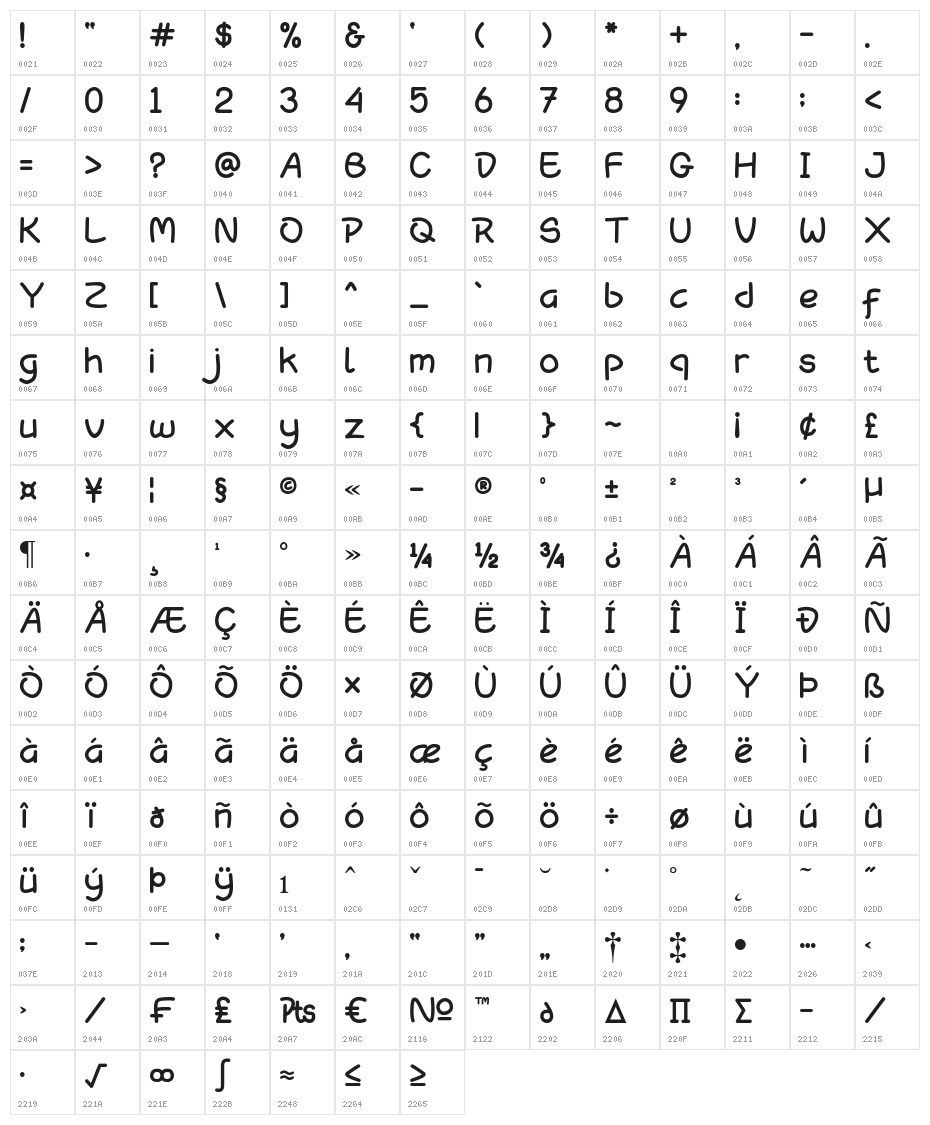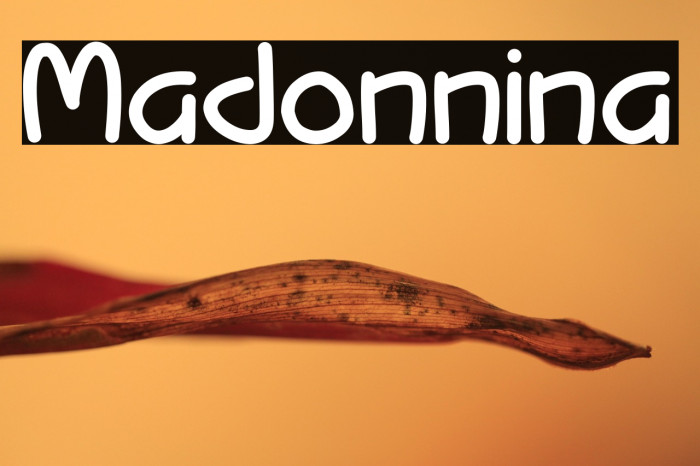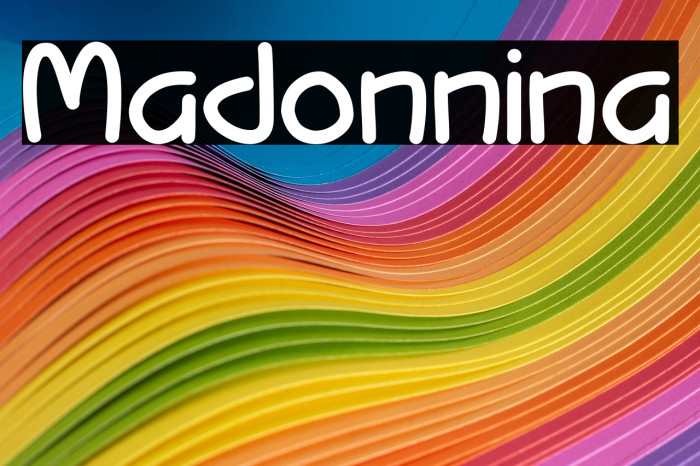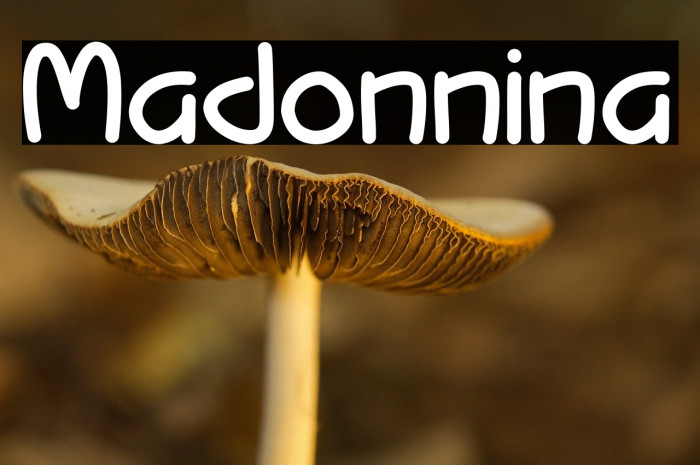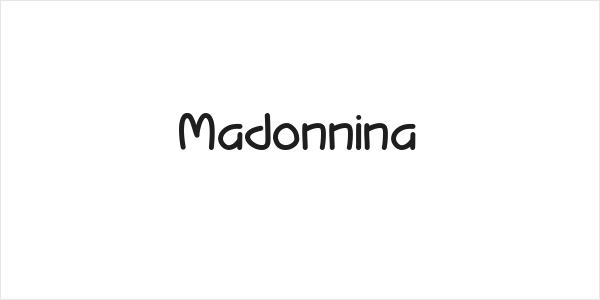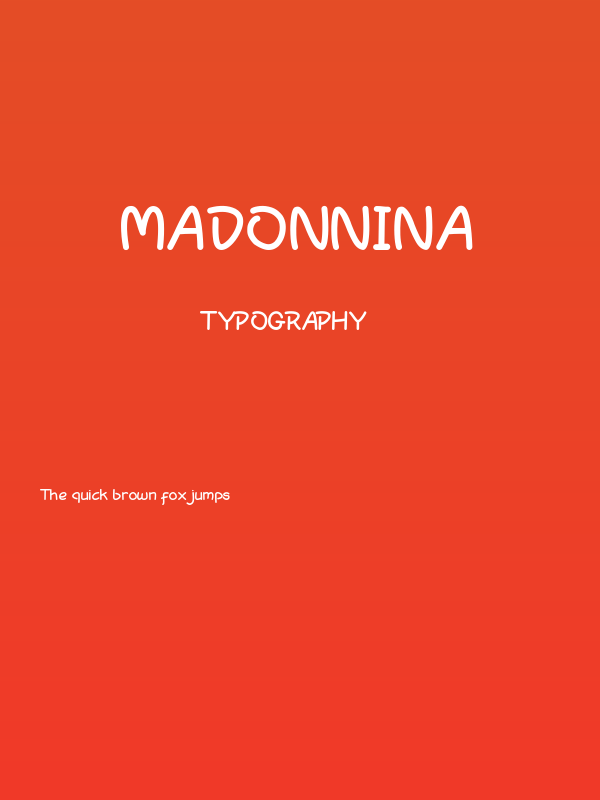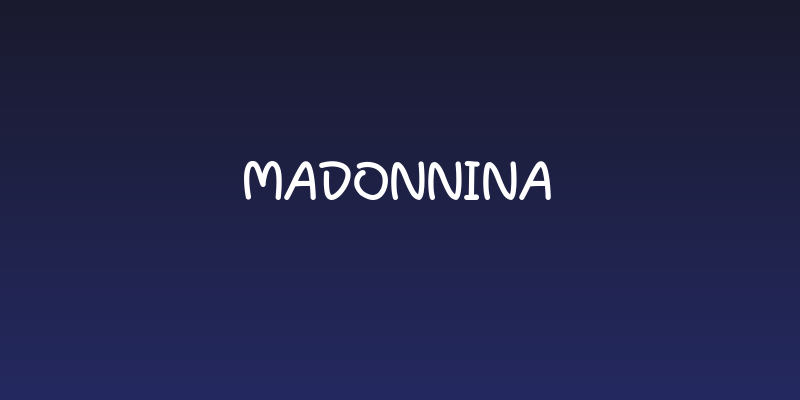
Madonnina Font
Madonnina Description
This playful and rounded font exudes a friendly and approachable vibe. The characters are slightly irregular, giving it a hand-drawn appearance that adds a touch of whimsy. The uppercase and lowercase letters maintain a consistent style, with smooth curves and a moderate thickness that ensures readability. Numbers and special characters follow the same design principles, making them cohesive with the alphabet. The font's informal style makes it suitable for creative and casual projects, where a relaxed and inviting tone is desired.